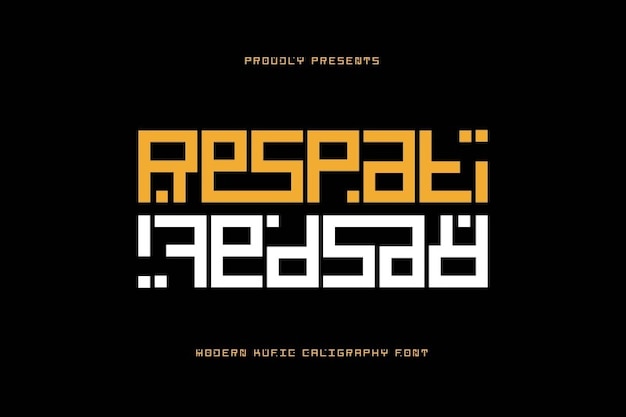
Respati
Respati Font
Flawless and Co
"Respati" font merges modernity with Arabian elegance in its geometric Arabic script. Each letter embodies contemporary sophistication, perfect for upscale designs. Whether for branding, invitations, or decorative elements, "Respati" adds a touch of refined charm, capturing the essence of Arabian beauty with its sleek and stylish appearance.